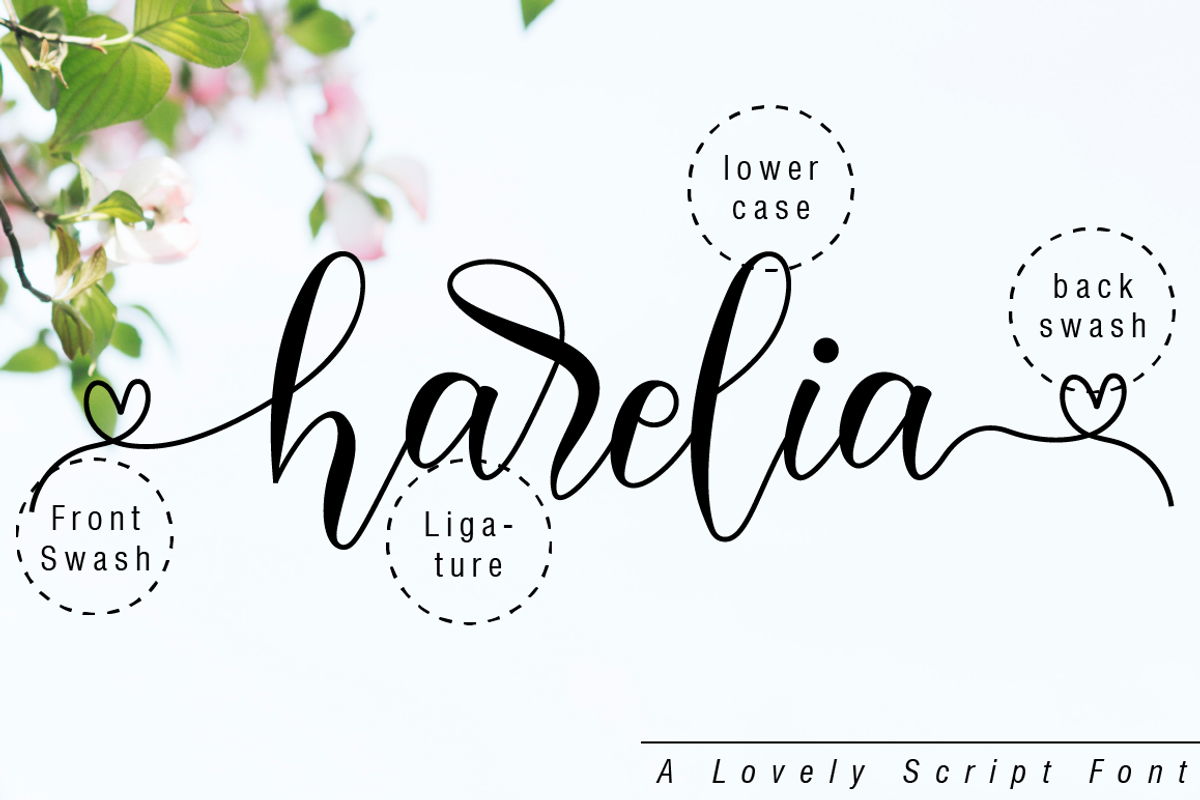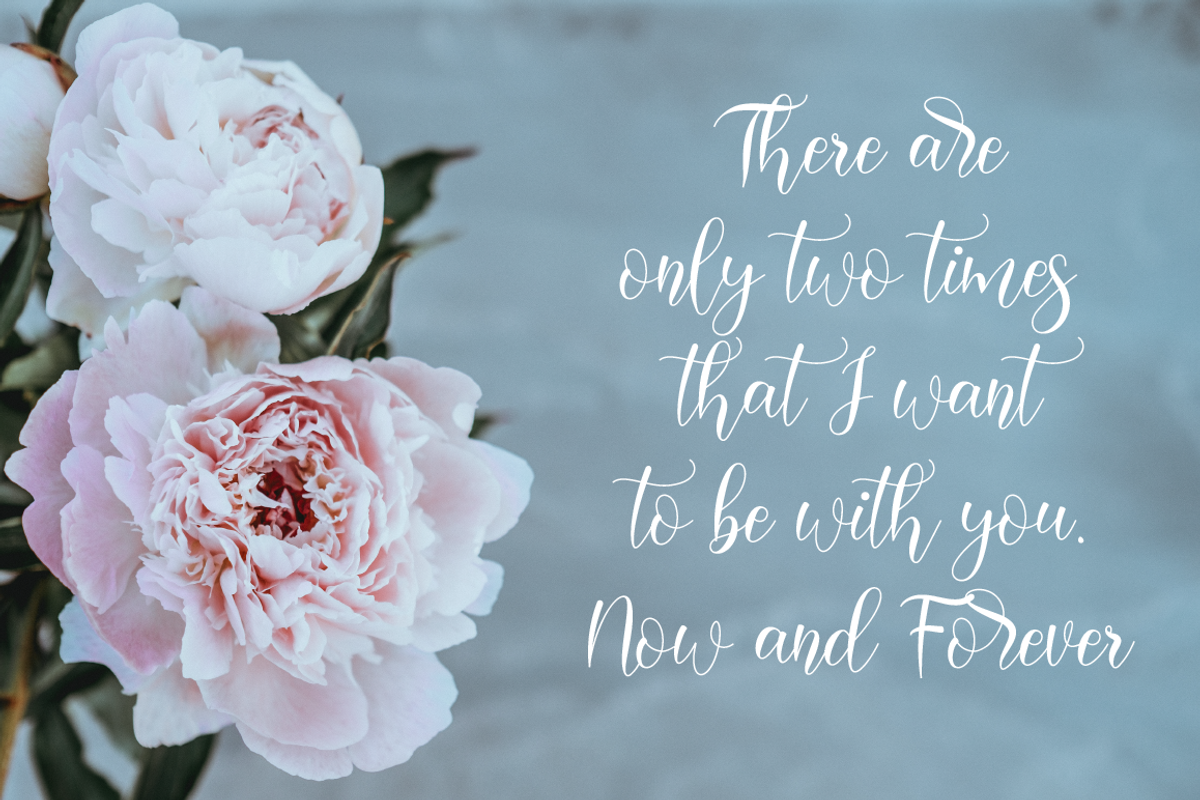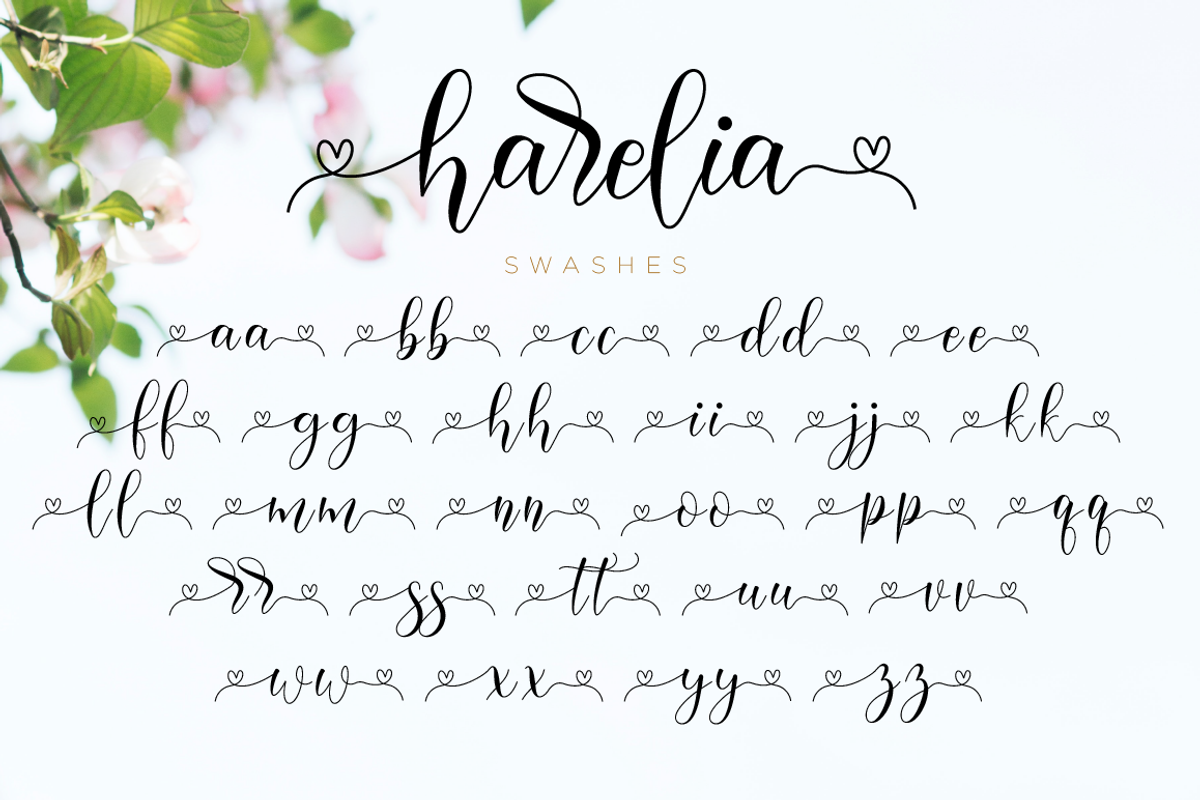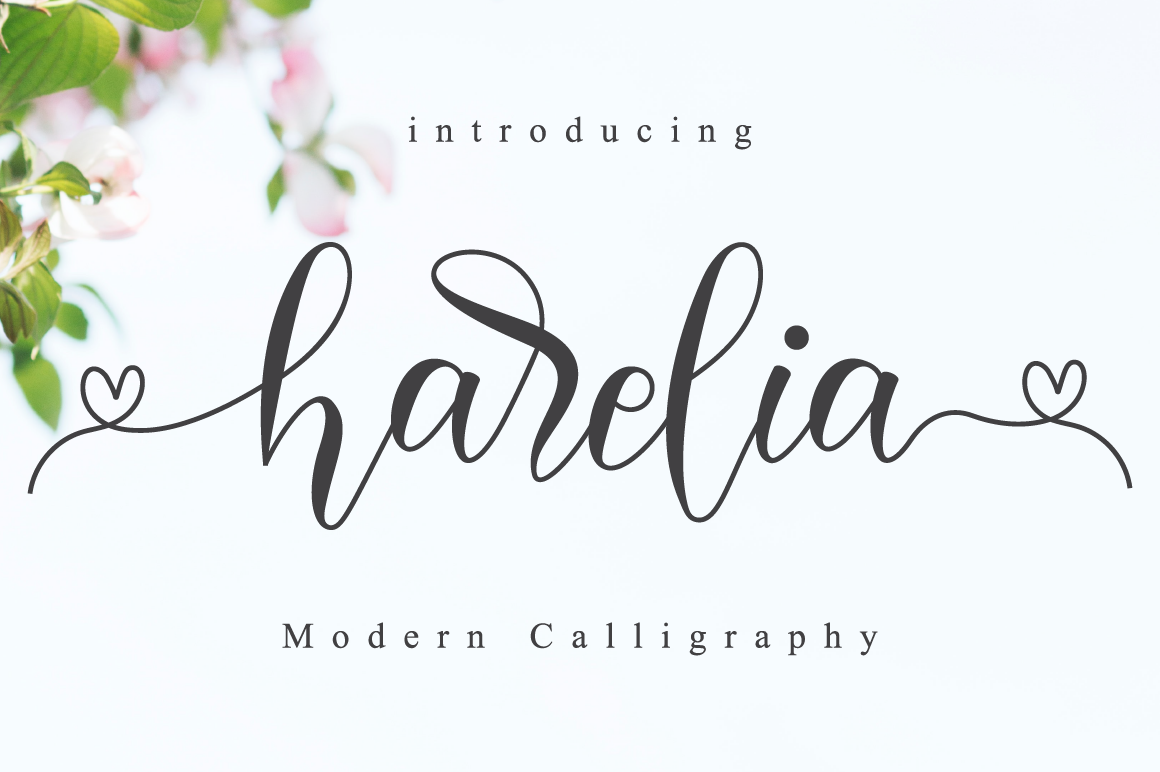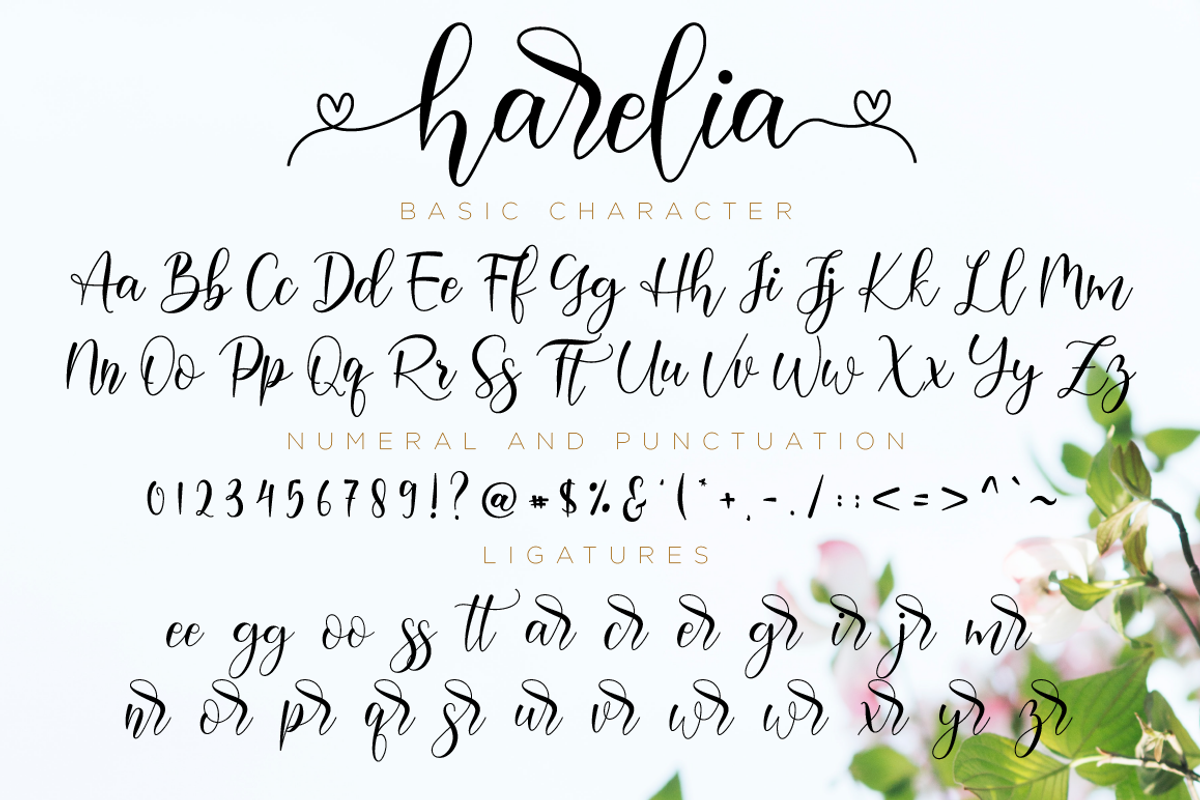
Harelia // Lovely Script Font
Harelia is an equally classy and authentic handwritten font with a unique feel. Fall in love with its organic swashes!
Each Font Has:
- Modern Handwritten Font
- Beautiful Swash (Ending tail)
- Beautiful Titling (Beginning tail)
- Special Ligatures